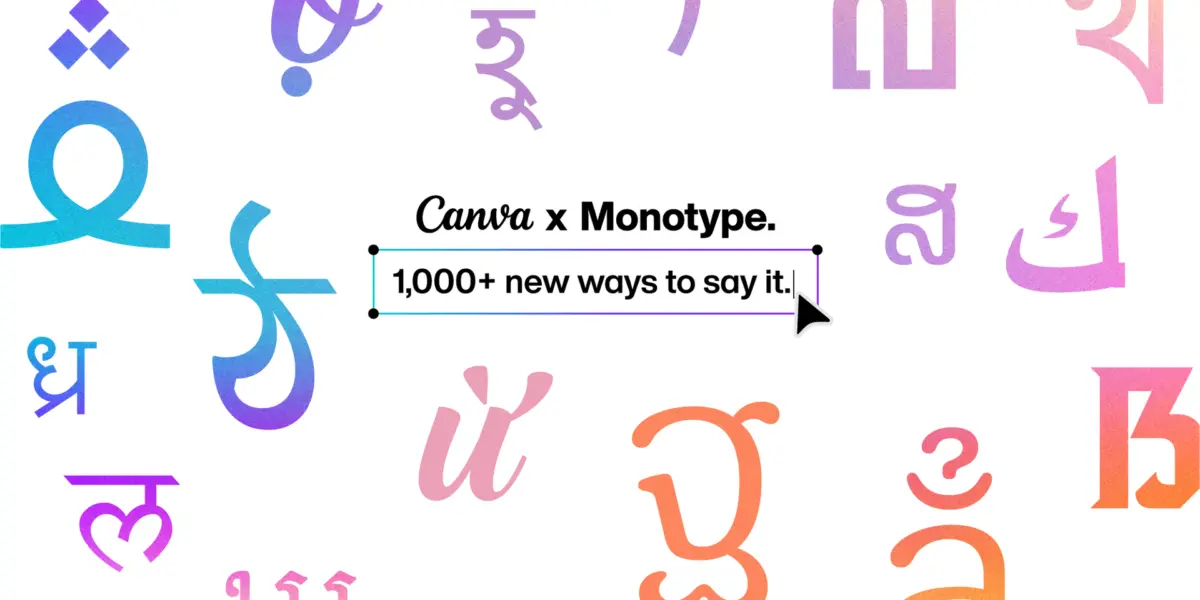
In a massive collaborative leap for digital design and global accessibility, popular graphic design platform Canva and typographic giant Monotype have significantly expanded their ongoing partnership. The collaboration introduces more than 1,000 new font styles to Canva’s already extensive catalog, pushing the platform’s total typography offerings past the 3,000 mark.
This major update is not merely a quantitative milestone; it is a calculated, strategic effort to bridge a historical gap in the design world. For years, digital creators working in non-Latin scripts—particularly languages like Hindi, Bengali, Vietnamese, Arabic, Thai, Khmer, and Lao—faced a severe shortage of professional-grade, high-curation typography options. By tapping into Monotype’s legendary font libraries and partnering with its global network of foundries, Canva is radically leveling the playing field for international creators.
Rather than treating language support as a basic technical checklist item, the expansion emphasizes distinct visual voices, artistic range, and deep cultural resonance. Creators around the globe can now communicate not just in their native languages, but with the exact tone, character, and visual personality they desire.
Chronology of the Partnership and Expansion
The integration of advanced typography into accessible design platforms has been a progressive evolution over the last several years.
Laying the Foundation: Canva recognized early on that democratic design required elite-level typography. Initial integrations with Monotype brought classic, universally recognized typefaces to the platform, setting a standard for what web-based design suites could offer amateur and professional users alike.
Identifying the Gap: As Canva’s user base exploded into a truly global community spanning millions of active creators across diverse geographies, data revealed a stark disparity. While English and Western European languages enjoyed thousands of nuanced serif, sans-serif, and display options, non-Latin scripts were frequently underserved, often limited to basic system fonts that lacked creative curation.
The Monotype Collaboration & Foundry Mobilization: Working closely with Monotype and independent foundries worldwide, typographic experts spent months curating, licensing, and optimizing over 1,000 distinct styles tailored specifically for scripts that have historically been overlooked in mainstream digital design tools.
The Global Launch: The partnership reached its current zenith with the official rollout of these 1,000+ new styles. The launch represents a monumental shift for Canva, transitioning the platform from a Western-centric design tool into a truly localized, culturally rich environment for global visual storytelling.
Supporting Data and Breakdown of the Font Integration
The sheer scale of the Canva and Monotype expansion is reflected in the granular breakdown of the new additions. The update focuses heavily on expanding stylistic breadth across multiple linguistic families, ensuring that creators have access to full typographic ecosystems rather than isolated fonts.
Key Numerical Highlights:
Total Canva Font Offerings: Now exceeds 3,000+ styles, up from previous counts, thanks to this single massive influx.
New Font Styles Added: Over 1,000 unique styles integrated across multiple global scripts.
Major Regional Increases:
Hindi: Added 99 new families and 298 distinct styles.
Bengali: Added 72 new families and 237 distinct styles.
Vietnamese: Added 114 new-supporting families and 249 distinct styles.
Additional Linguistic Scripts Covered: Significant stylistic injections into Arabic, Khmer, Lao, and Thai.
This data illustrates a clear design philosophy: providing variety not just for the sake of numbers, but to ensure that typography can match complex corporate branding, delicate editorial layouts, striking advertising campaigns, and vibrant social media content across entirely different writing systems.
Official Responses and Industry Insights
Industry leaders from both Canva and Monotype have emphasized the profound cultural and creative implications of this partnership milestone.
Charles Nix, Global Head of Creative Strategy at Monotype, highlighted the philosophy driving the collaboration during the rollout:
"Supporting the characters in a language is only the starting point. Real choice means having different voices, styles, and personalities to choose from. By bringing more than 1,000 additional styles in a wide array of scripts to Canva, we’re giving more creators the freedom to find type that fits not only their language, but how they speak visually."
Monotype’s perspective underscores a vital truth in modern typography: a font is never just a vehicle for legibility; it is an emotional and aesthetic conduit. When a designer in Hanoi, Mumbai, or Dhaka selects a typeface, they are making a statement about their brand’s identity, mood, and professionalism.
Conclusion
The expansion of the Canva and Monotype partnership is much more than a routine software update—it is a watershed moment for inclusive design. By bridging the gap between technical language support and true artistic choice, the collaboration empowers millions of creators to tell their stories with precision, beauty, and authenticity. As Canva’s font library crosses the 3,000-style threshold, the message to the global creative community is clear: no matter what language you speak, your visual voice deserves to be expressed in full definition.